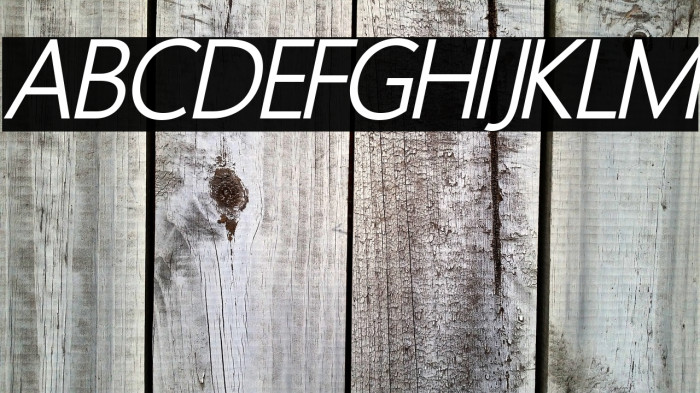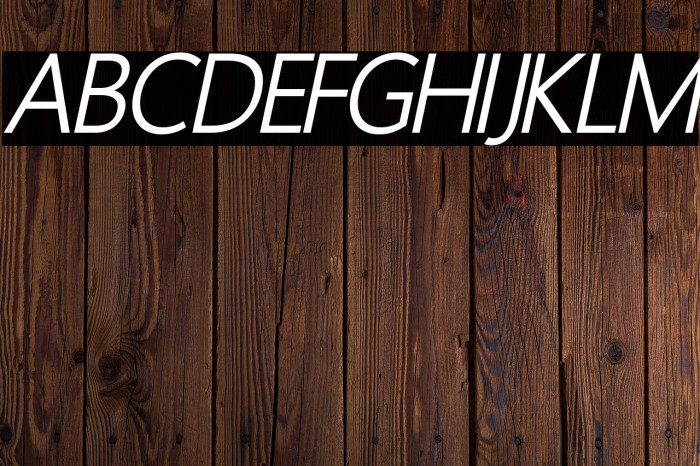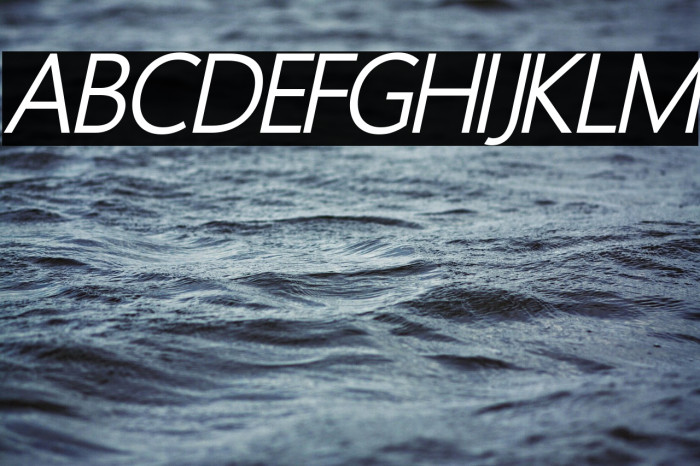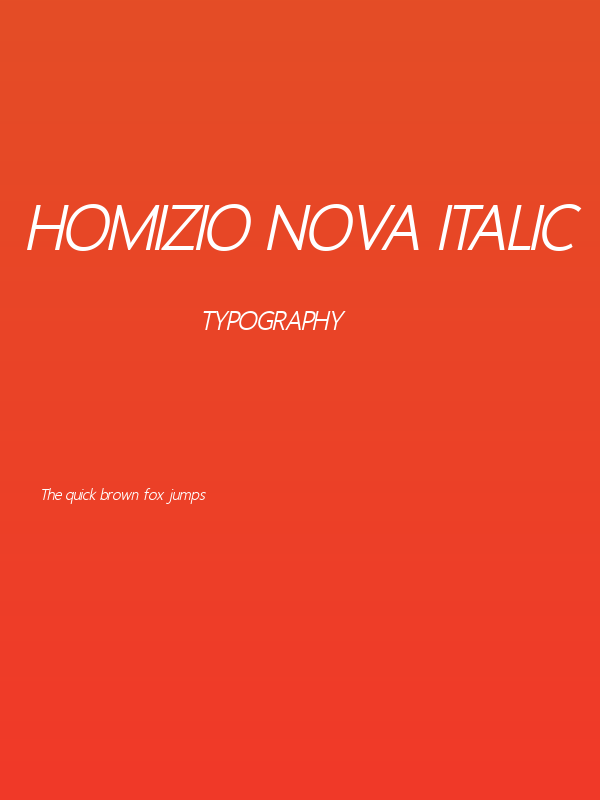
Homizio Nova Italic Font
Homizio Nova Italic Description
This font features a sleek and modern design with a slight slant, giving it an italicized appearance. The characters are clean and well-defined, with smooth curves and a consistent stroke width that enhances readability. The uppercase letters are tall and elegant, while the lowercase letters maintain a harmonious flow. Numbers are clear and distinct, making them suitable for various applications. Special characters are included, providing versatility for different types of content. The overall aesthetic is contemporary, making it ideal for projects that require a stylish and professional look.
| Proposed Projects | Ideal for branding, advertising, digital media, and editorial design. |